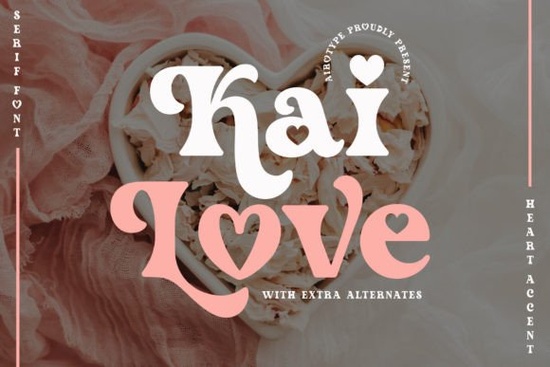
If you’re working on a project that needs to feel warm, personal, and just a little bit nostalgic, Kai Love Font might be exactly what you’re looking for. It’s a modern serif with vintage charm and a sweet twist every letterform carries a subtle heart accent that adds personality without being overbearing. Whether you’re designing Valentine’s Day cards, custom t-shirts, or inspirational quote prints, this font brings a gentle, affectionate tone to your work.
What makes Kai Love Font stand out from other serifs?
Most serif fonts lean toward formality or classic elegance. Kai Love keeps the grace of a serif but softens it with rounded terminals and those signature heart-shaped details. It doesn’t scream “romantic” instead, it whispers it. That balance makes it surprisingly versatile.
You can pair it with clean sans-serifs for contrast or let it shine solo on greeting cards and stickers. The slightly vintage texture gives it warmth, while the modern proportions keep it fresh enough for contemporary branding or social media graphics.
- Heart accents Tiny but meaningful, they appear subtly in select characters.
- Vintage-modern blend Not too retro, not too sleek just right for crafty, handmade feels.
- Print-ready Works beautifully for sublimation, embroidery digitizing, vinyl cutting, and more.
Who should consider using this font?
If you sell personalized gifts, run a small Etsy shop, or create content for holidays and special occasions, Kai Love is worth adding to your toolkit. It’s especially handy around February, but don’t limit it to Valentine’s Day. Think:
- Anniversary invitations
- Mother’s Day or Father’s Day crafts
- Wedding welcome signs or table numbers
- Inspirational wall art with phrases like “Choose Love” or “Made With Love”
- T-shirt designs for couples, best friends, or pet lovers
Even if you’re not running a business, hobbyists will enjoy how easy it is to make something feel heartfelt. The font includes uppercase, lowercase, numerals, and punctuation everything you need for full sentences or short impactful phrases.
How does it pair with other fonts?
Kai Love plays well with others. Try combining it with a minimalist sans-serif like Montserrat or Raleway for clean contrast. Or go full cozy by pairing it with a handwritten script just keep the script light and airy so the page doesn’t feel cluttered.
A few quick pairing ideas:
- Kai Love + A simple sans-serif Great for modern branding with a personal touch.
- Kai Love + A thin script Perfect for wedding stationery or boutique packaging.
- Kai Love alone, all caps Surprisingly strong for logos or bold quotes.
Any tips for getting the most out of this font?
Don’t overcrowd it. Kai Love’s charm lies in its details, so give it breathing room. Use generous leading (line spacing) and avoid cramming too much text into tight spaces. It shines brightest in headlines, short phrases, or decorative elements not body paragraphs.
Also, play with color. While it looks lovely in classic black or deep burgundy, try soft blush tones, sage green, or even gold foil effects for an elevated look. If you’re designing for print, test how the heart accents translate at smaller sizes sometimes they disappear below 12pt, depending on the medium.
Is it beginner-friendly?
One thing to note: if you’re using it for cutting machines or embroidery, double-check that your software recognizes OpenType features properly. Most do, but it never hurts to test a sample first.
Final thoughts before you download
Kai Love isn’t trying to be flashy or trendy. It’s the kind of font that quietly enhances your message whether you’re telling someone you love them, celebrating a milestone, or simply adding warmth to a product. Its strength is in its subtlety, and that’s what makes it reusable across seasons and styles.
If you’ve been searching for a font that feels personal without being cutesy, elegant without being stiff, and vintage without feeling outdated this one’s a solid pick.